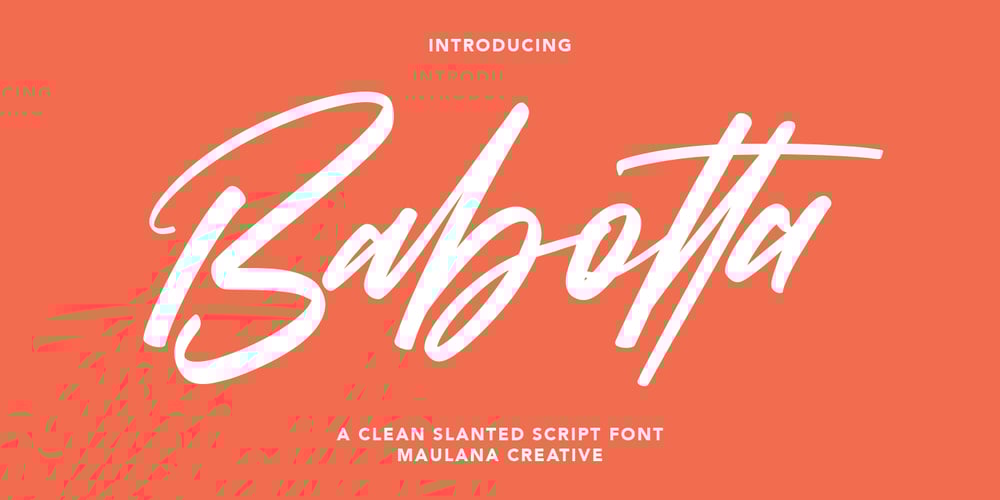
Babotta
Babotta font
Babotta Font Family was designed by Gilang Maulana and published by Maulana Creative. Babotta contains 1 styles and family package options. Babotta is a calligraphic style script font. With clean stroke and fun character. It has Opentype features a couples of ligature to give you an extra creative work. Babotta signature support multilingual more than 100+ language. This font is good for logo design, Social media, Movie Titles, Books Titles, a short text even a long text letter and good for your secondary text font with sans or serif. Make a stunning work with Babotta script font. Cheers, MaulanaCreative